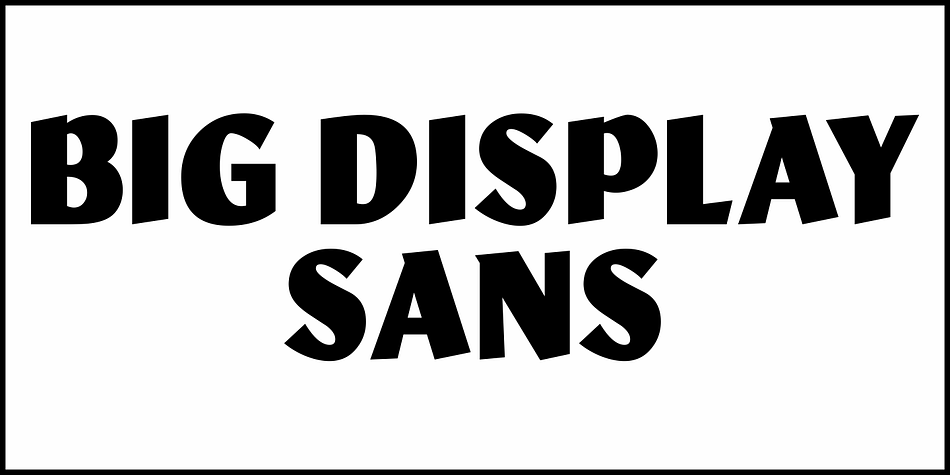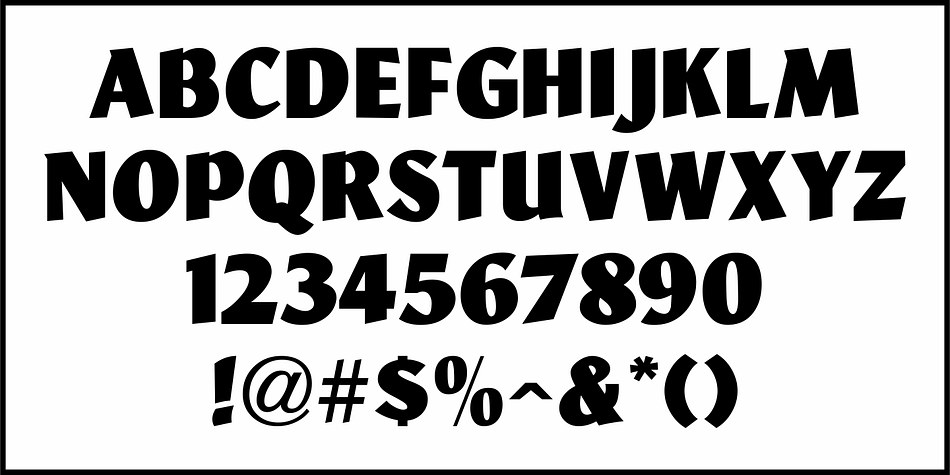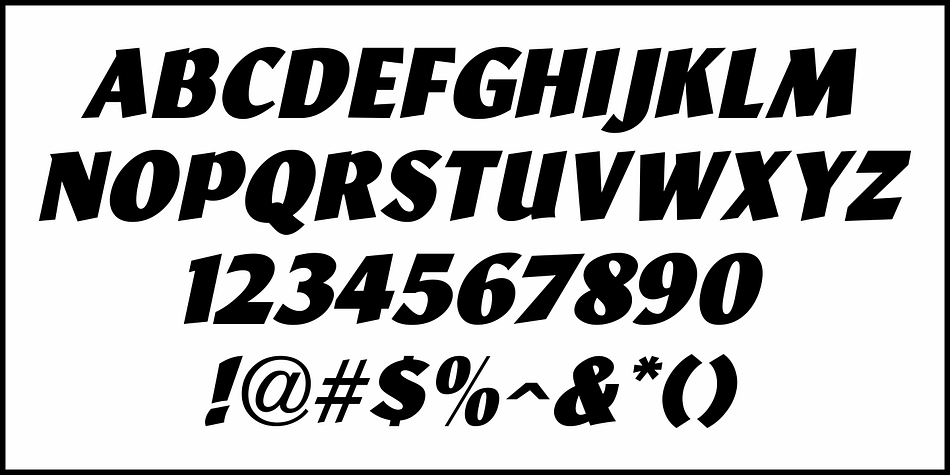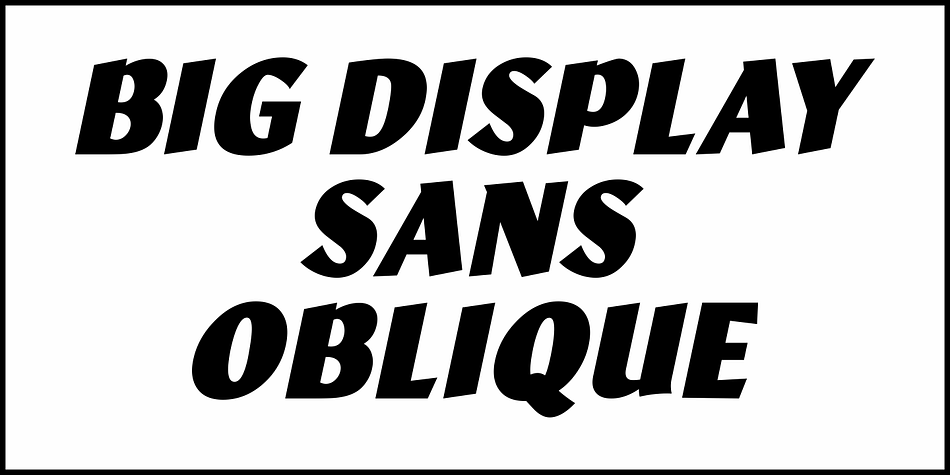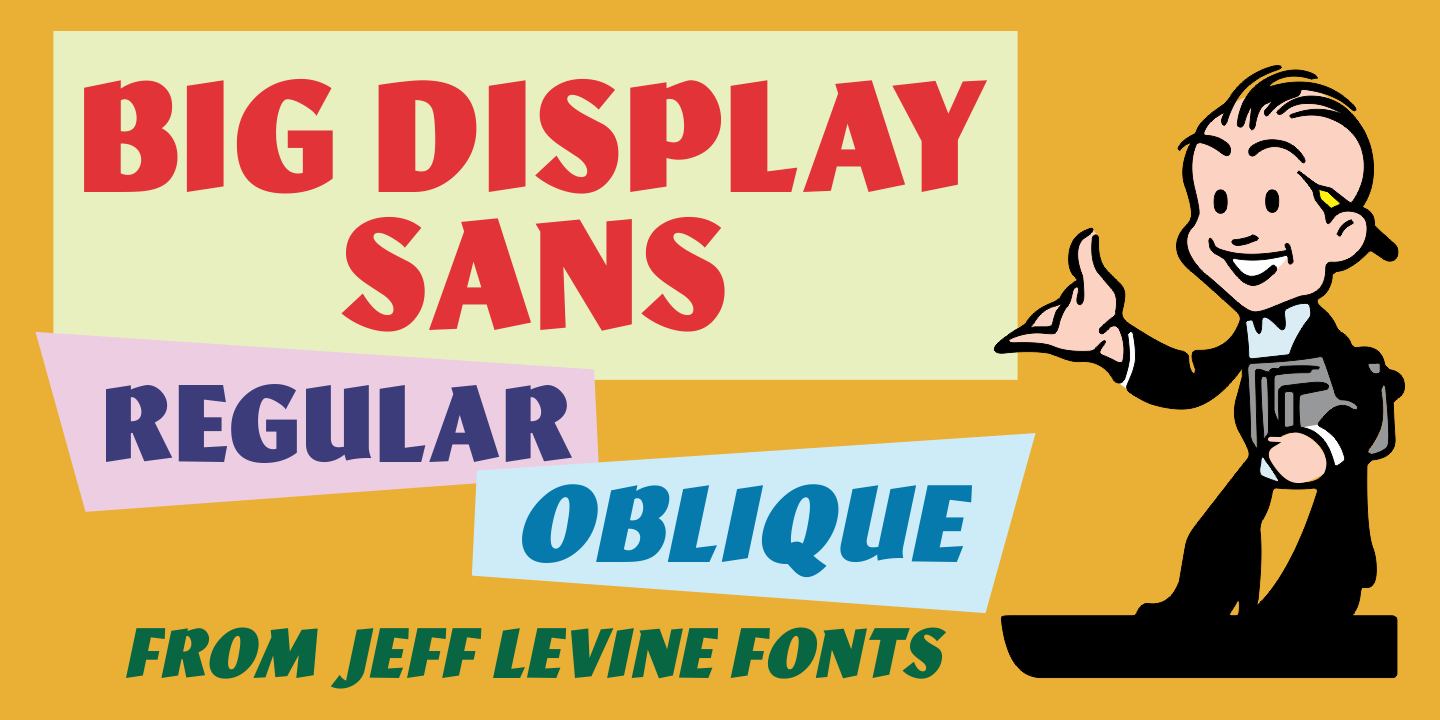
BIG DISPLAY SANS JNL
Designed by Jeff Levine, Big Display Sans JNL is a display sans font family. This typeface has two styles and was published by Jeff Levine Fonts.
Big Display Sans JNL is an all-caps version of Ludlow’s metal type “Samson”, originally designed by Robert Hunter Middleton in 1940.
This digital version is available in both regular and oblique versions.